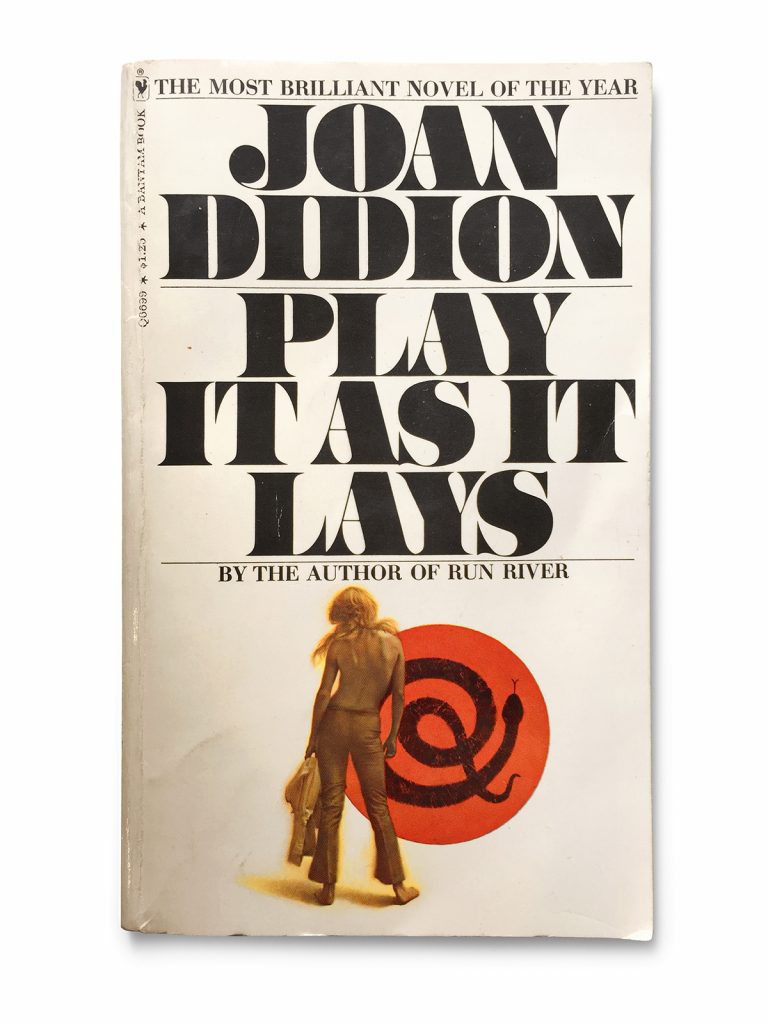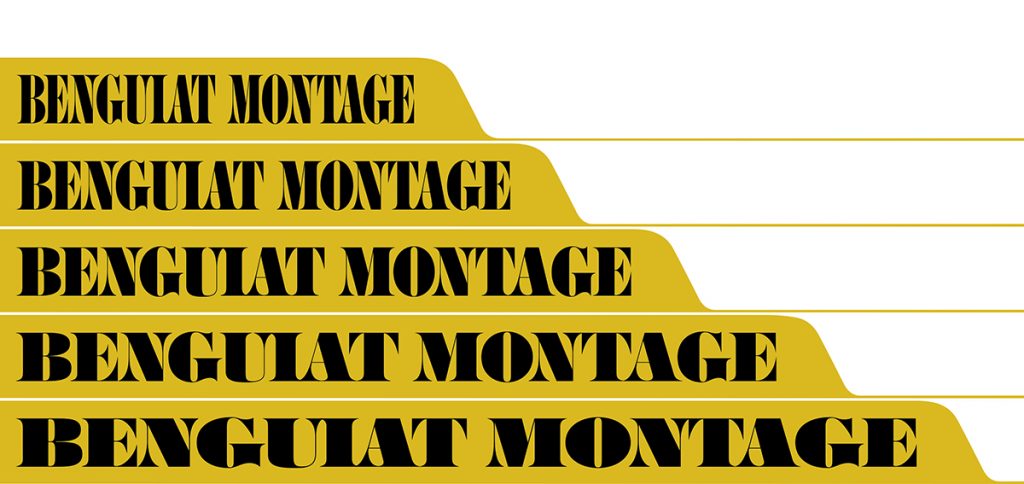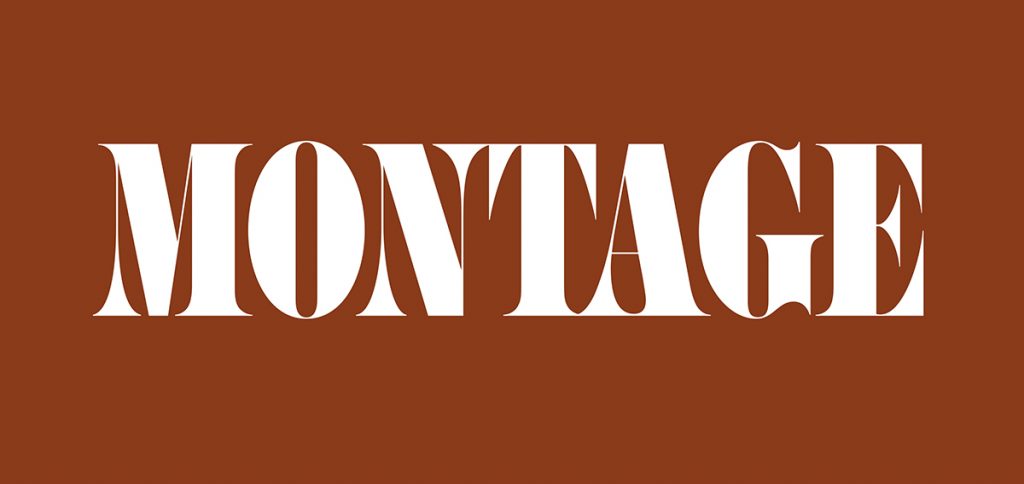
Name: Montage
Designer: The typeface was originally designed by Ed Benguiat in the 1960s. In late 2019, Montage’s letterforms were shaped into five compatible widths by type designers Jess Collins, Mitja Miklavčič, Ben Kiel, and House Industries type director Ken Barber.
Foundry: House Industries
Release Date: November 2019, in its updated version
Back Story: Montage was originally designed for Photo-Lettering, the New York-based company that pioneered photocomposition in 1936 and lasted until desktop publishing took over the type design industry. According to House Industries, it’s uncertain when exactly Benguiat created it—the designer can’t quite recall himself—but it’s somewhere between 1960 and 1965. Once you recognize Montage’s distinctively charming spaces, its brazen quirks like the perfect circle that rounds off the “J,” and its distinctive contrasts, you’ll realize you’ve seen it everywhere—from book jackets to album covers, posters, and logos. “When you see Montage in action, you know right away the role it has played in some of the most influential pop culture mediums to date,” says House Industries.
Since the typeface was initially created for Photo-Lettering, that meant it was never a metal typeface, but rather was typeset for film only. Andy Cruz, co-founder and art director at House Industries, and Ken Barber, the foundry’s type design director, had been longtime fans of the font. “We fell in love with it seeing it in the Photo-Lettering catalogs—they were a graphic designer’s bible before computers really hit,” says Cruz. “Every agency had the thesaurus on their shelf, and we’d always reference it in the early days when we started in around 1994.”
Barber had a first chance interaction with the catalogs when he happened upon a discounted, second hand edition of Volume 2 in Mercer Street Books in New York while still at art school. “I just gravitated toward it,” he adds. Ten years later, as part of House Industries, the team interviewed Benguiat as fanboys, and “developed a mentor relationship with him,” says Cruz.
When an opportunity arose to acquire the Photo-Lettering alphabet rights, House Industries jumped at it, but it’s only now that Montage has been beaten into shape for the modern type designer into the form of a robust, digital font family.
What are its distinguishing characteristics? Aside from its bold weight, high contrast, and crisp contours, Montage is mostly distinctive in its ligatures, which are bold and hugely expressive. The numerals are particularly playful and charming, once you spot all their little nuances and peccadilloes. In order to ensure that Montage maintains that sense of presence in a variety of text settings, the designers added a set of pre-drawn letter combinations. “When enabled, the Ligature feature identifies problem pairs like—fl, fi, ff, and ffl—and substitutes them with glyphs optimized to enhance font performance,” the foundry explains. House Industries also added a handful of alternate characters.
Barber points out that Montage “comes from an interesting period of typography,” emerging around the same time as Swiss Modernism. “It took hold at the dawn of Helvetica, so there was a shift in typography, but film typography was almost a backlash to Swiss Modernism. It’s ‘tight not touching’ as Ed would say, so the prevailing idea was that film typesetting allowed designers to do things with type that metal physically didn’t allow them to do, like alter the texture, as they didn’t have the constraints of [metal type] spacing.” As such, fonts like Montage could be incredibly bold, while still maintaining a tightness that meant the letterforms could almost overlap—something metal typesetting simply couldn’t accommodate unless it was hand-drawn.
“With the rise of advertising and marketing, expressive typography has become an element of our culture. People realized the medium and message could be one in the same thing—the style could be the content.”
“Before then, type was primarily for books or long passages,” Barber says. “With the rise of advertising and marketing, expressive typography has become an element of our culture. People realized the medium and message could be one in the same thing—the style could be the content—so readability might have suffered, as it might take an extra moment to parse the meaning, but it grabbed attention. Benguiat translated that ideal masterfully.” Indeed, Montage proves just that: in its design, he pays as much attention to the negative space as the letterforms to create what Barber aptly describes as “a unique rhythm.”
Why’s it called Montage? Well, no one is quite sure. According to Cruz, “Ed had a habit of naming his typefaces after girlfriends, wives, and ex wives, his children… we never learned why it was called Montage.” However, its origins as one of more than 10,000 alphabets in the Photo-Lettering catalog might have something to do with it. Benguiat, as the catalog art director, had a hell of a lot of naming on his hands. “At that point they were happy to find any name suitable for their offerings,” Barber suggests.
What should I use it for? While Montage is very much a product of the 1960s, its roots are in the Fat Face style fonts of the 19th century when advertising posters and billboards were first taking off. This means its primary goal is not legibility, but it allows designers using it for larger applications to “emphasize small details that people might not even pay attention to,” says Barber, such as the striking contrast between thick and thin strokes. Its impact also lies in those delicious ball terminals: “It creates these beautiful delicate spaces,” says Barber. “It’s so weighty and beefy, you don’t expect these surprisingly delicate moments.”
This means it’s the perfect font for impactful poster designs, logotypes, record sleeves, book covers, mastheads—anything that wants you to sit up and take notice, really. House Industries has already used it for projects including its forthcoming Lettering Manual, where it appears in section headers, as well as in a collaboration with Uniqlo.
What should I pair it with? The sheer strength and impact of Montage means it should stand proud, and not be overshadowed by other display-like fonts. Cruz reckons it would be wise to pair it with something more “vanilla and simple” such as the straightforward sans serif Neutraface. “Because Montage has such high contrast, it might also work well with a bold high contrast script,” Barber adds. “There are a number of ways you can put together a broader typographic palette with it.”